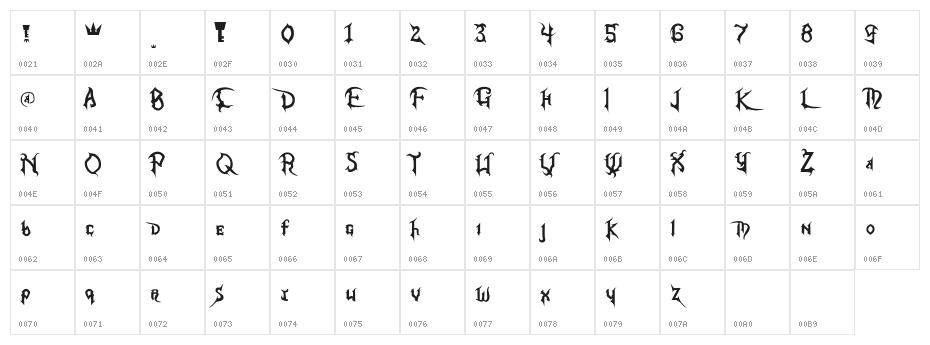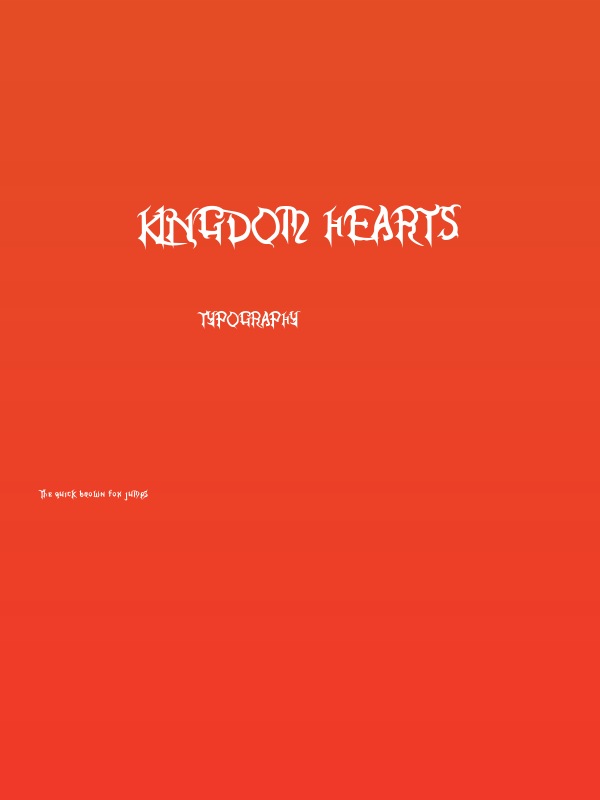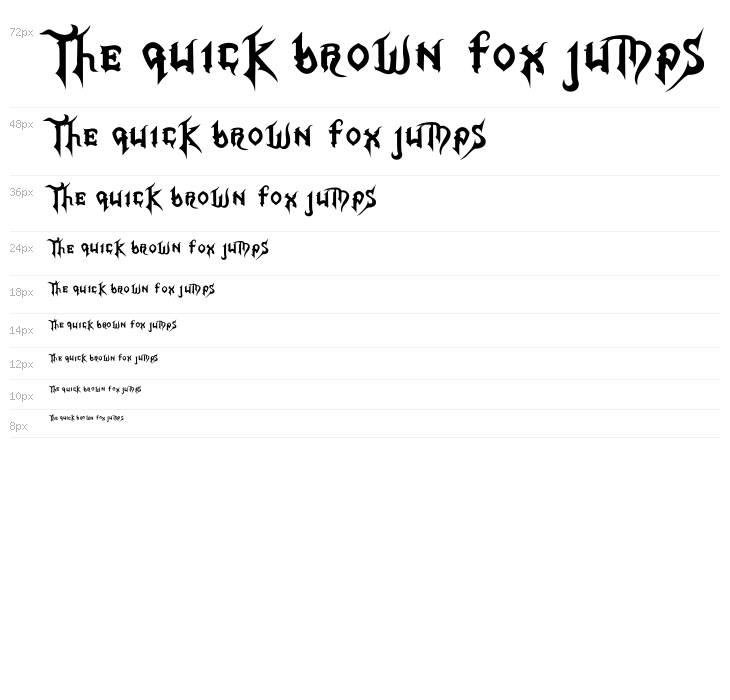
Kingdom Hearts Font
Kingdom Hearts Description
This font features a highly stylized, gothic-inspired design with sharp, angular lines and intricate detailing. The uppercase letters are bold and dramatic, with exaggerated serifs and pointed edges that give a sense of motion and intensity. The lowercase letters maintain the same sharp aesthetic, though they are slightly more compact. Numbers and special characters follow the same design principles, ensuring a cohesive look across all characters. The font's unique style makes it stand out, ideal for projects that require a bold, distinctive appearance.
| Overall Style | Gothic, Dramatic |
| Proposed Projects | Ideal for fantasy-themed designs, video game titles, movie posters, and branding that requires a dramatic flair. |